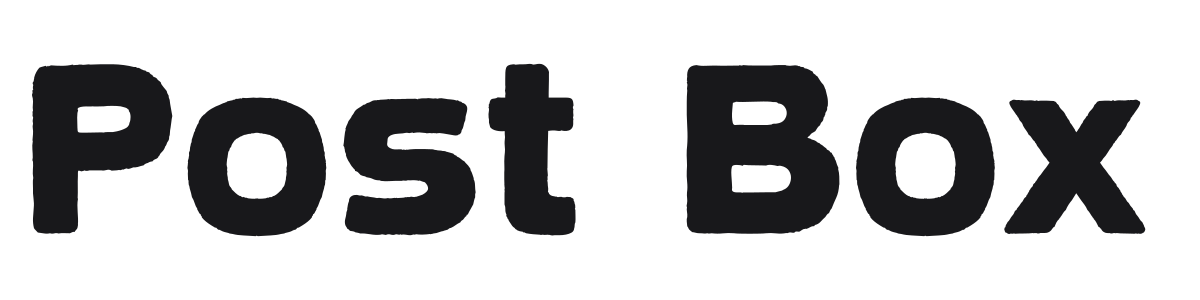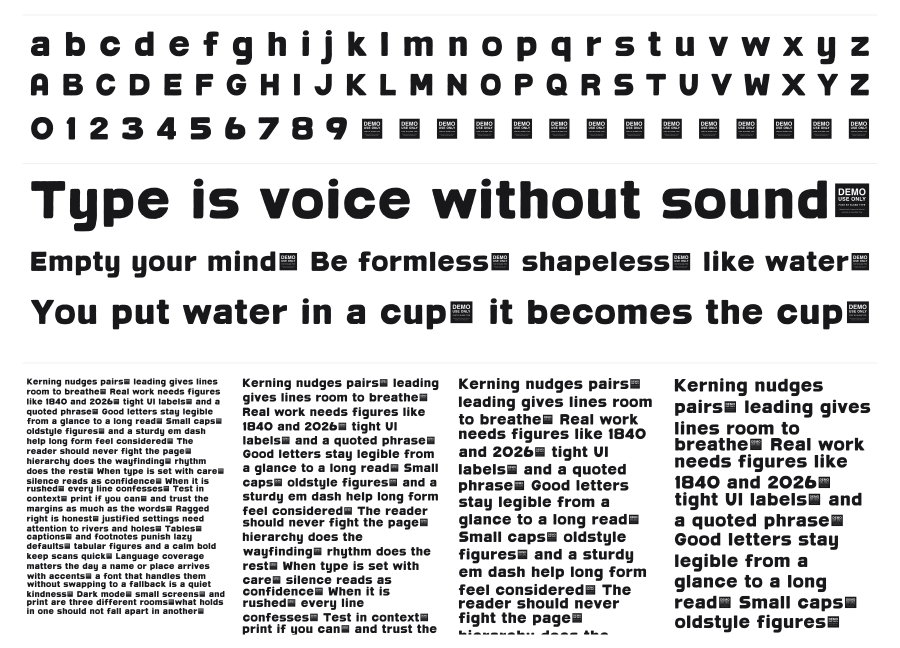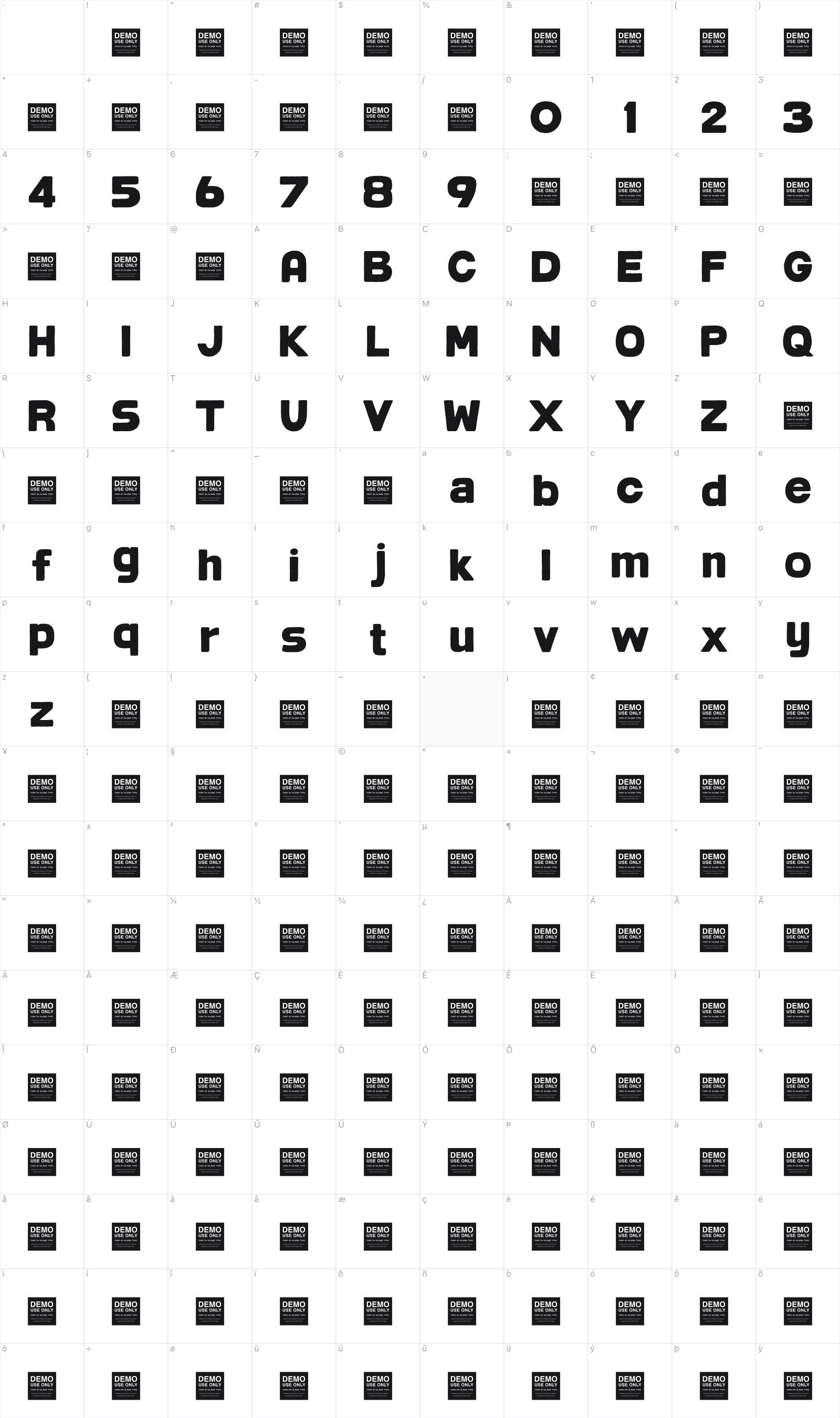
Post Box
Post Box is a heavy rounded sans-serif from BLKBK with thick, monoweight strokes and fully rounded terminals that soften its considerable weight. The wide proportions and large x-height make it confident and legible at large sizes without losing its approachable character. It suits bold branding, packaging, and anywhere a headline needs to feel both strong and friendly.